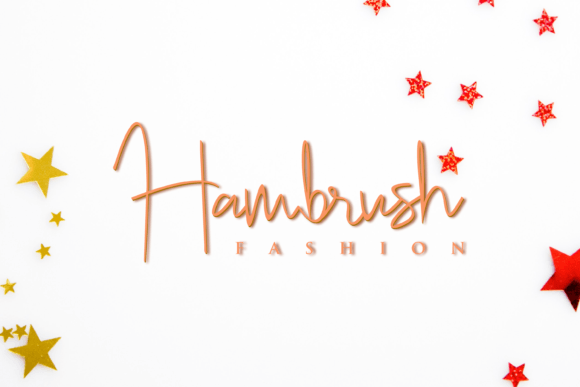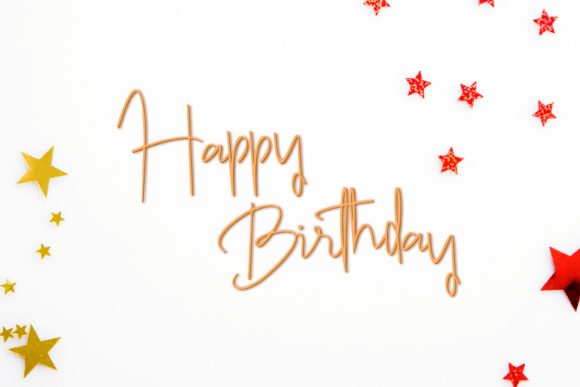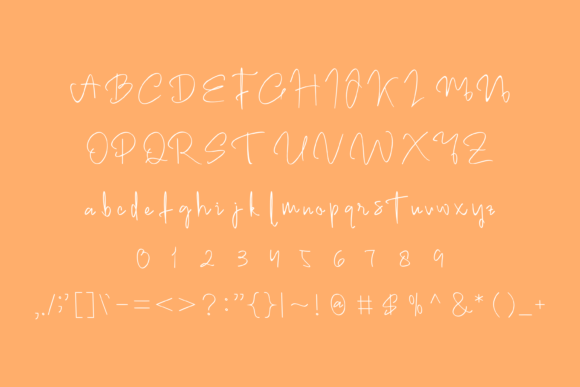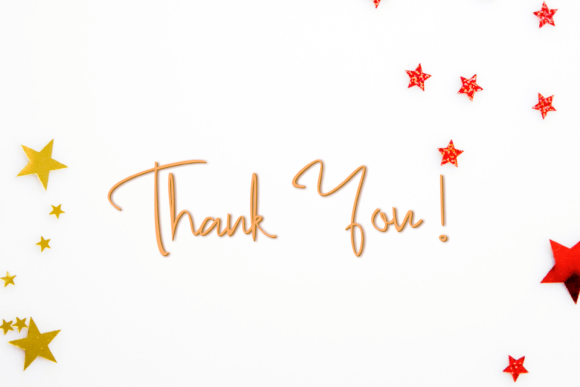
Bartiah Font
About Bartiah Font
Bartiah is a slim and cursive handwritten font, perfect for creative projects that needed authentic typography! Add it to invitations, business cards, watermarks, logos, branding, and others.